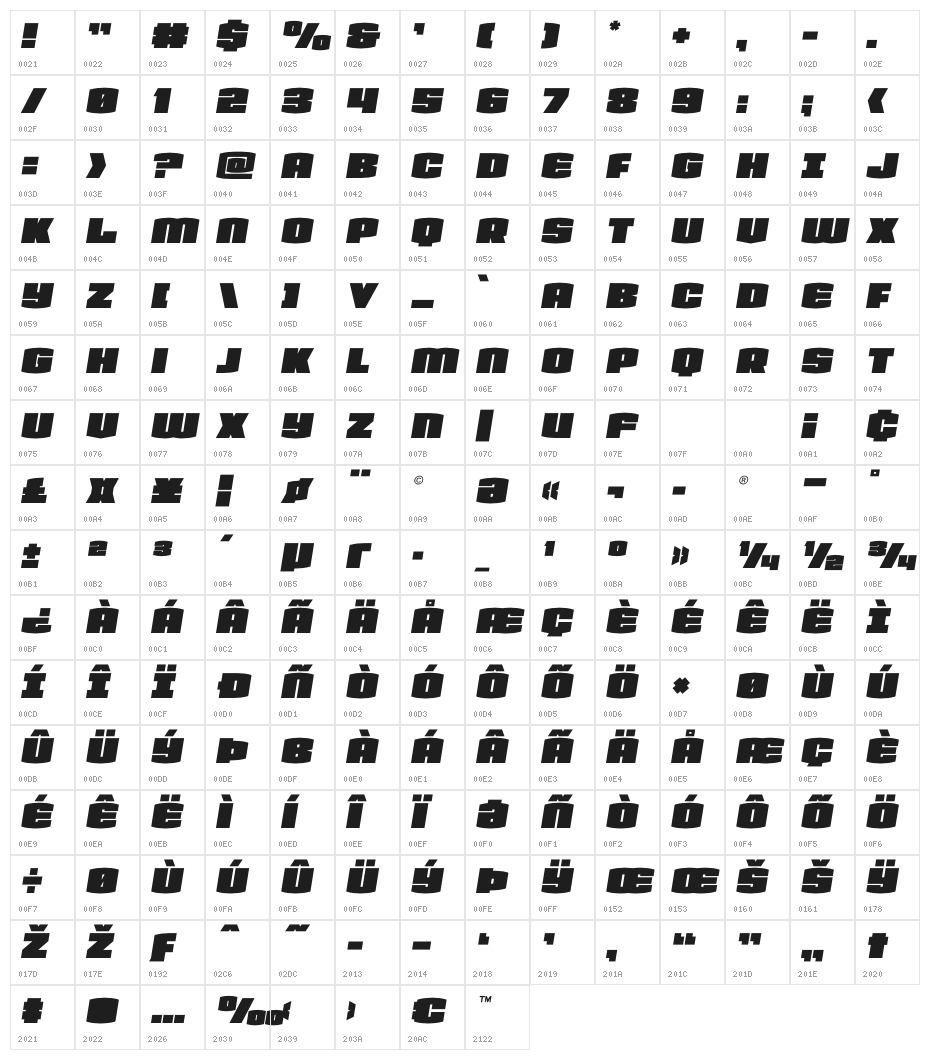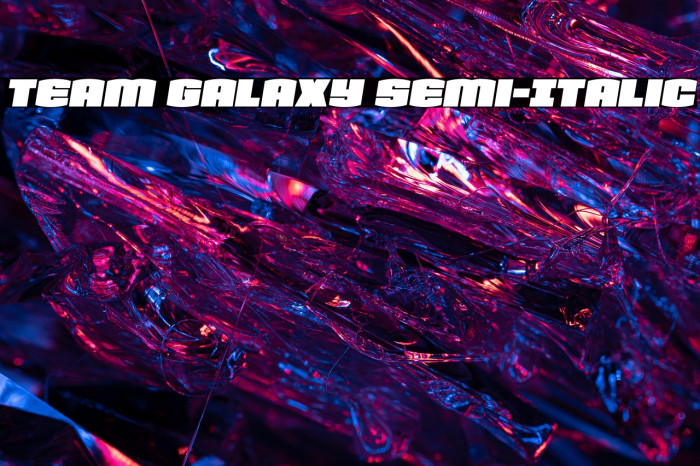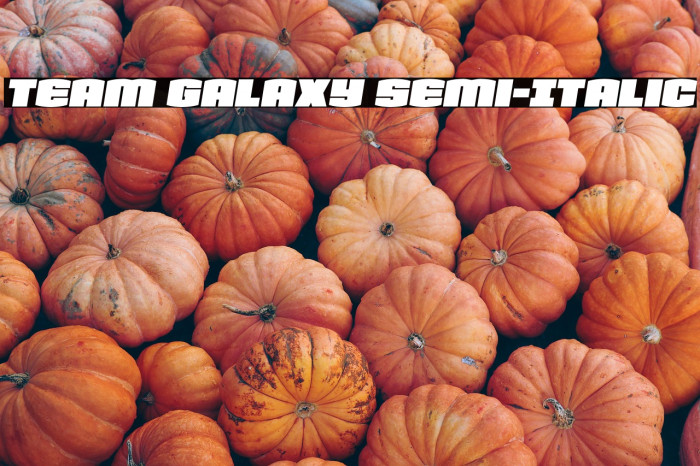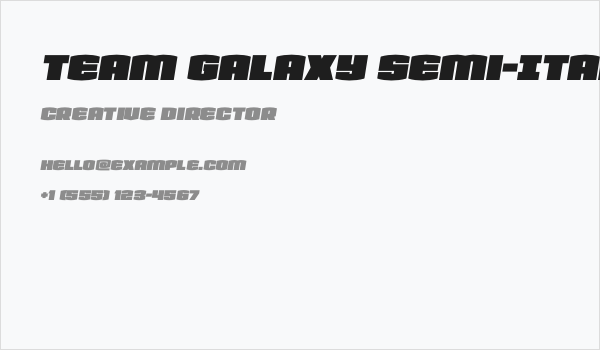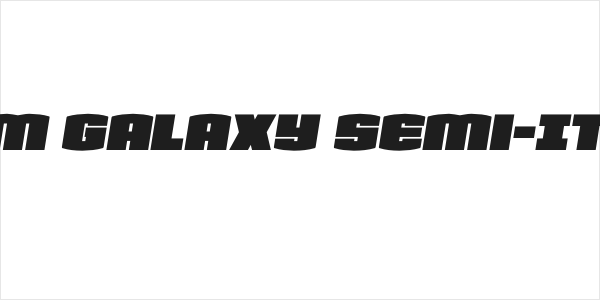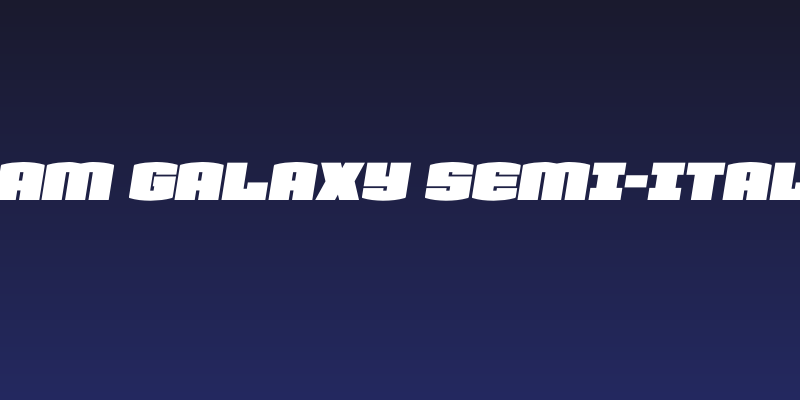
Team Galaxy Semi-Italic Font
Team Galaxy Semi-Italic Description
This font features a bold and dynamic design with a semi-italic slant, giving it a sense of movement and energy. The characters are wide and robust, with a slightly condensed form that maintains readability while maximizing impact. The strokes are thick and uniform, creating a strong visual presence. The angular cuts and sharp edges add a modern and futuristic feel, making it suitable for projects that require a bold statement. The font's unique style is accentuated by its high contrast between the thick strokes and the negative space, ensuring that each character stands out distinctly.
| Proposed Projects | Ideal for sports branding, futuristic designs, video game titles, and dynamic posters. |